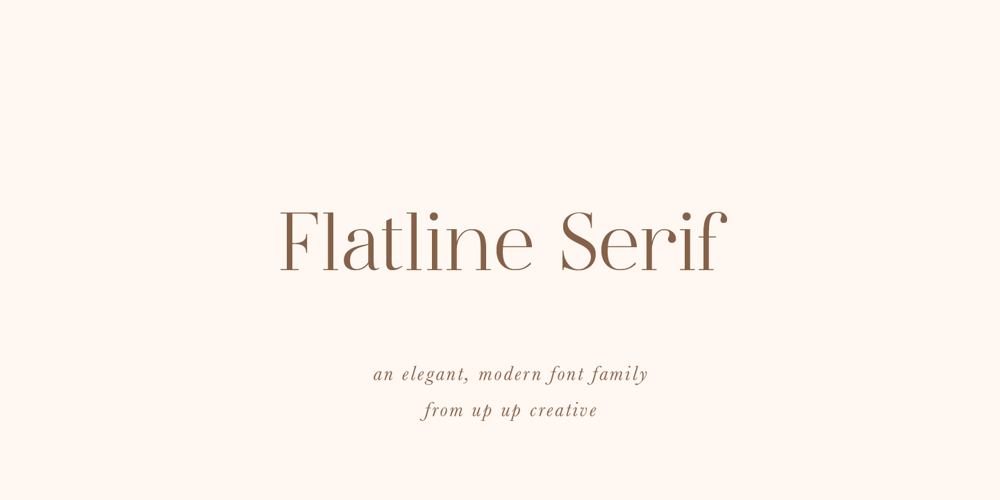
Flatline Serif
Flatline Serif font
Flatline Serif Font Family was designed by Julie Green and published by Up Up Creative. Flatline Serif contains 16 styles and family package options. Introducing Flatline Serif, a warm, friendly, and sensual serif font family. Meticulously drawn with high contrast between thick and thin strokes, it’s perfect for headlines, editorial uses, and advertising projects. Makes beautiful luxe logos and wedding invitations, too.Flatline Serif is an expansion of our existing bestseller, Flatline Sans.Flatline includes sixteen styles (eight weights each in both roman and italic), each of which includes nearly 500 glyphs. OpenType features include standard and discretionary ligatures, a small number of character variants, three figure sets, four ampersand styles, and multilingual support (including multiple currency symbols).The OpenType features can be very easily accessed by using OpenType-savvy programs such as Adobe Illustrator and Adobe InDesign. (You can also access most most of these features in Microsoft Word and other similar programs, but you’ll need to get comfortable with the advanced tab of Word’s font menu. If you need help with this, just ask!)